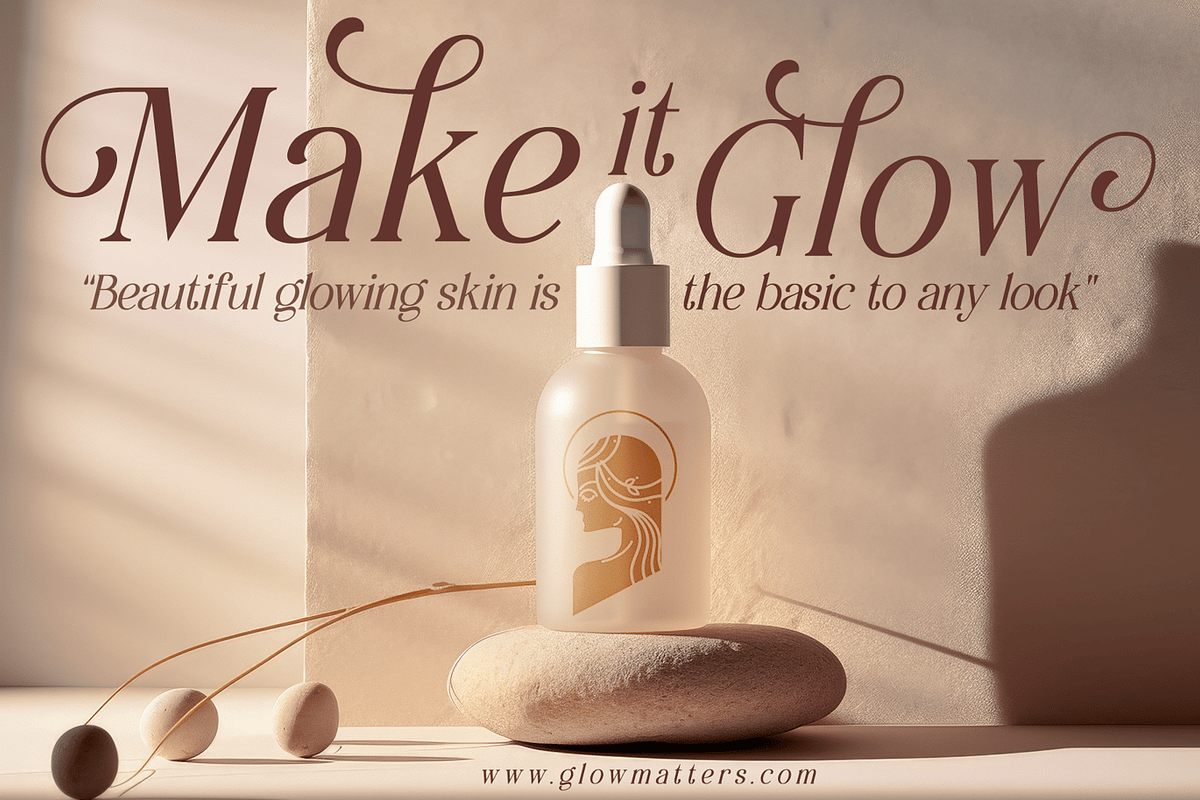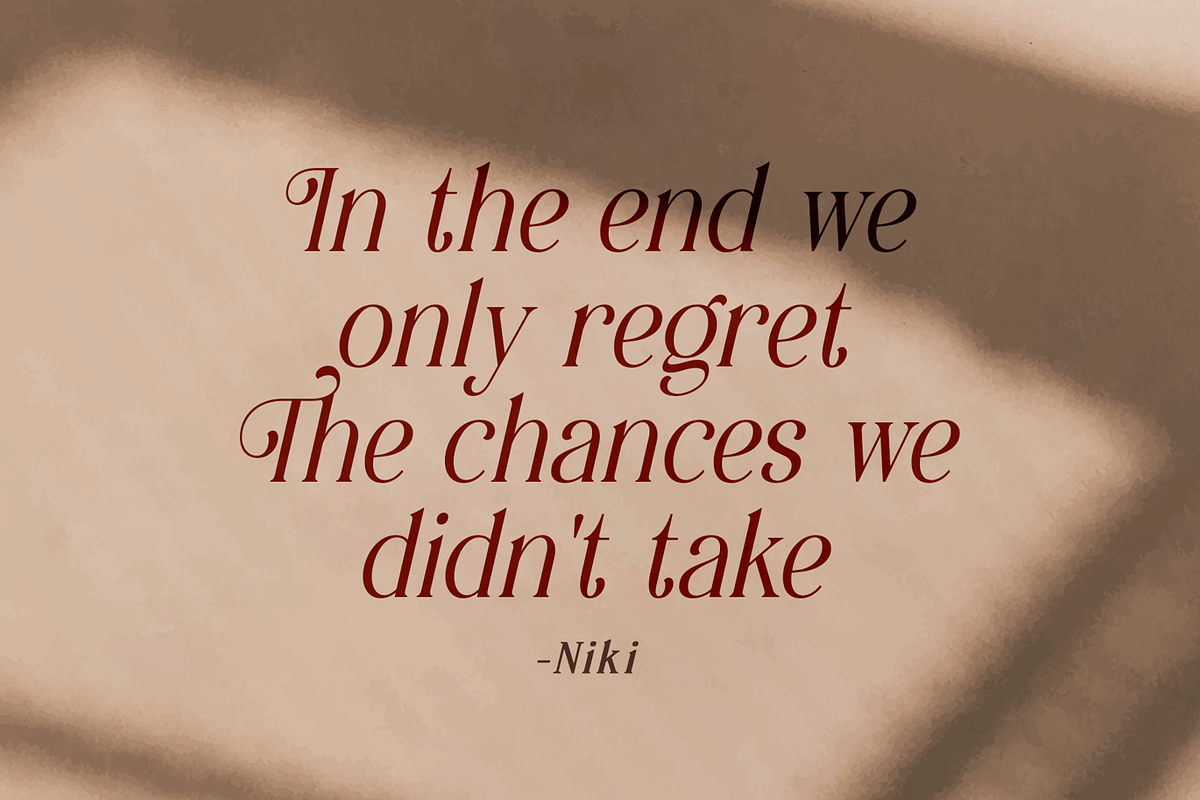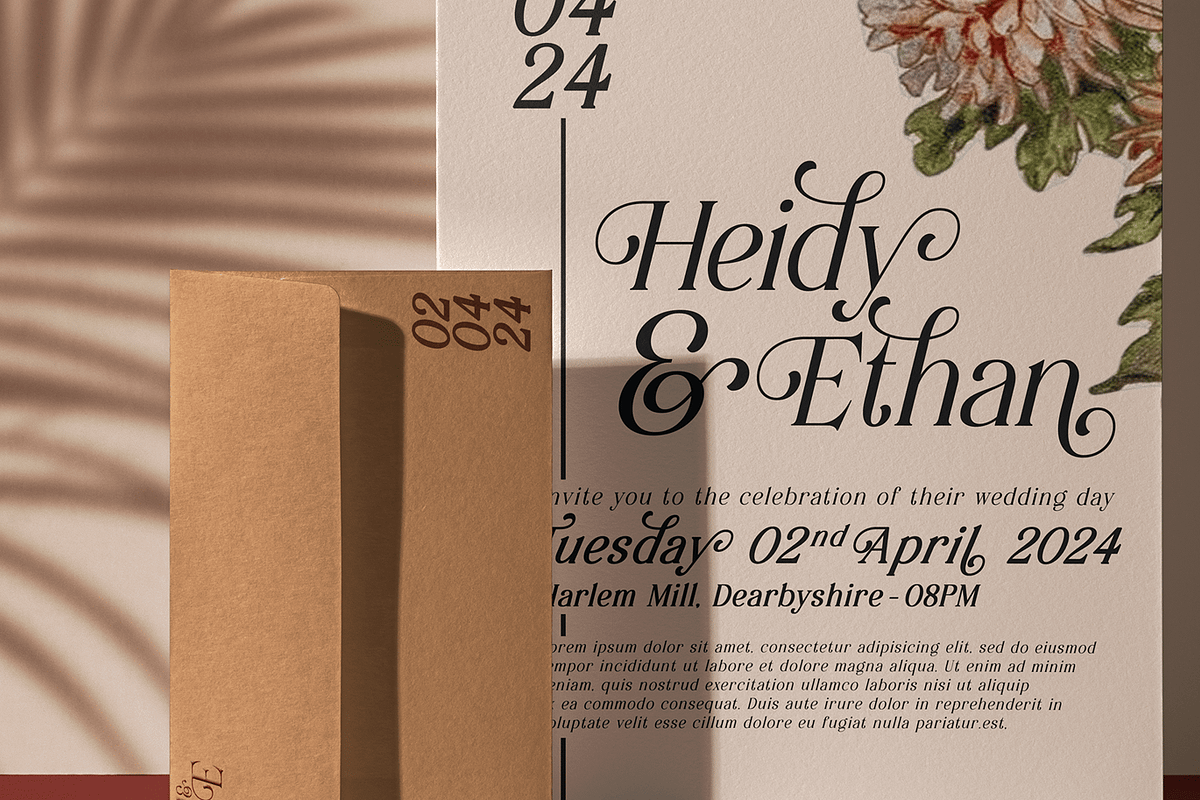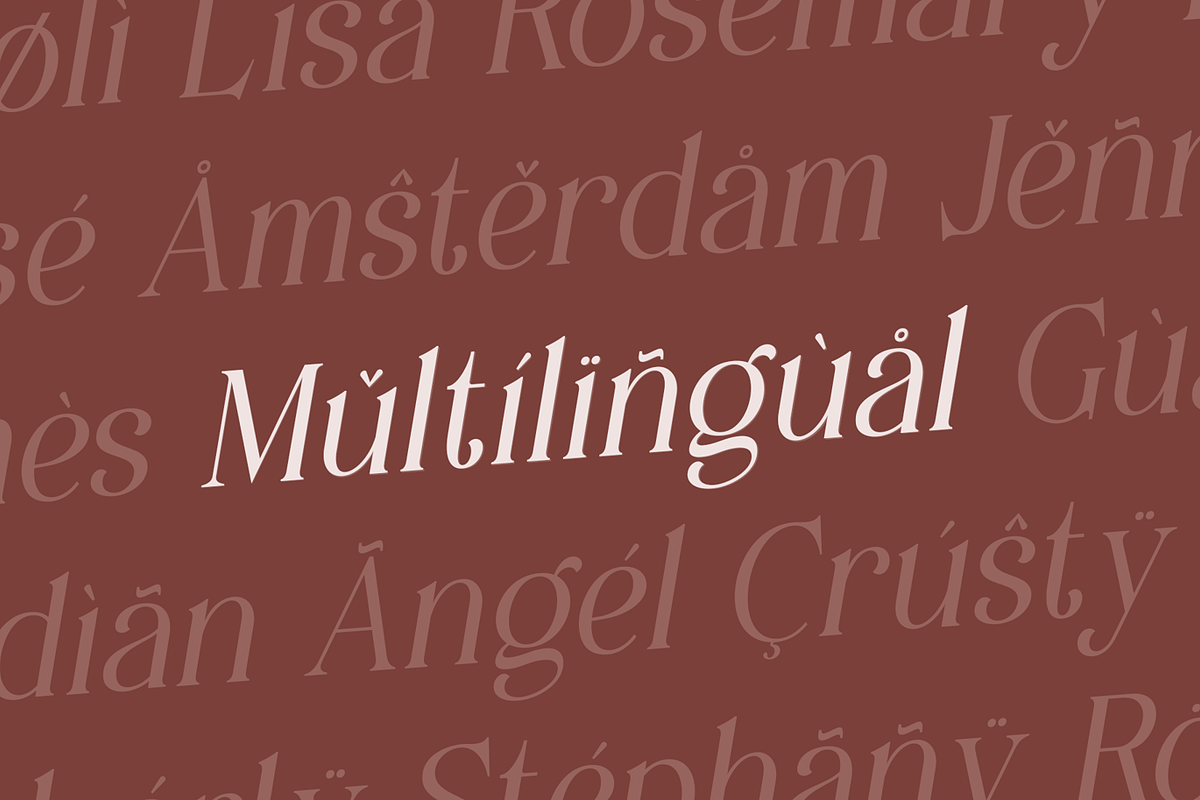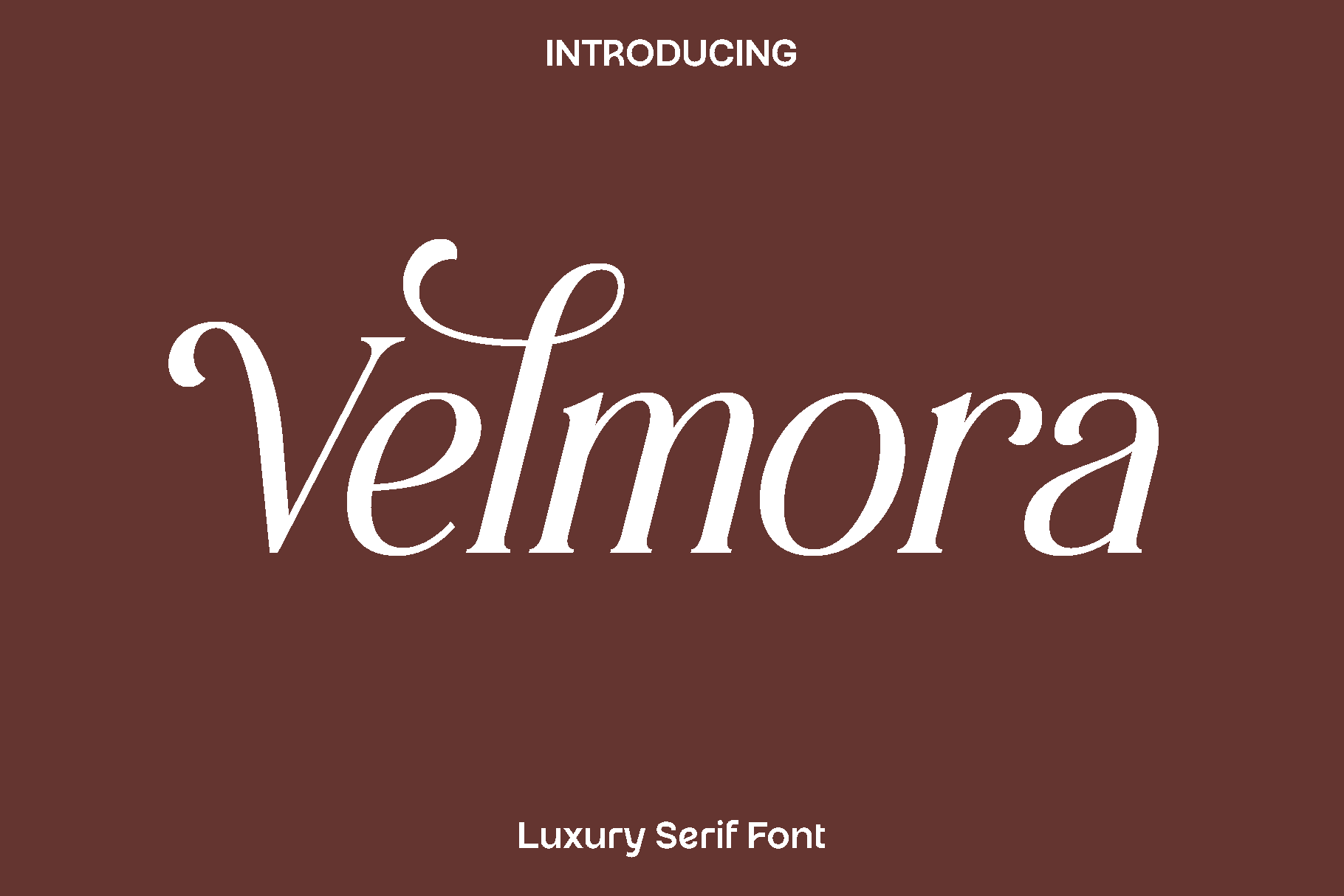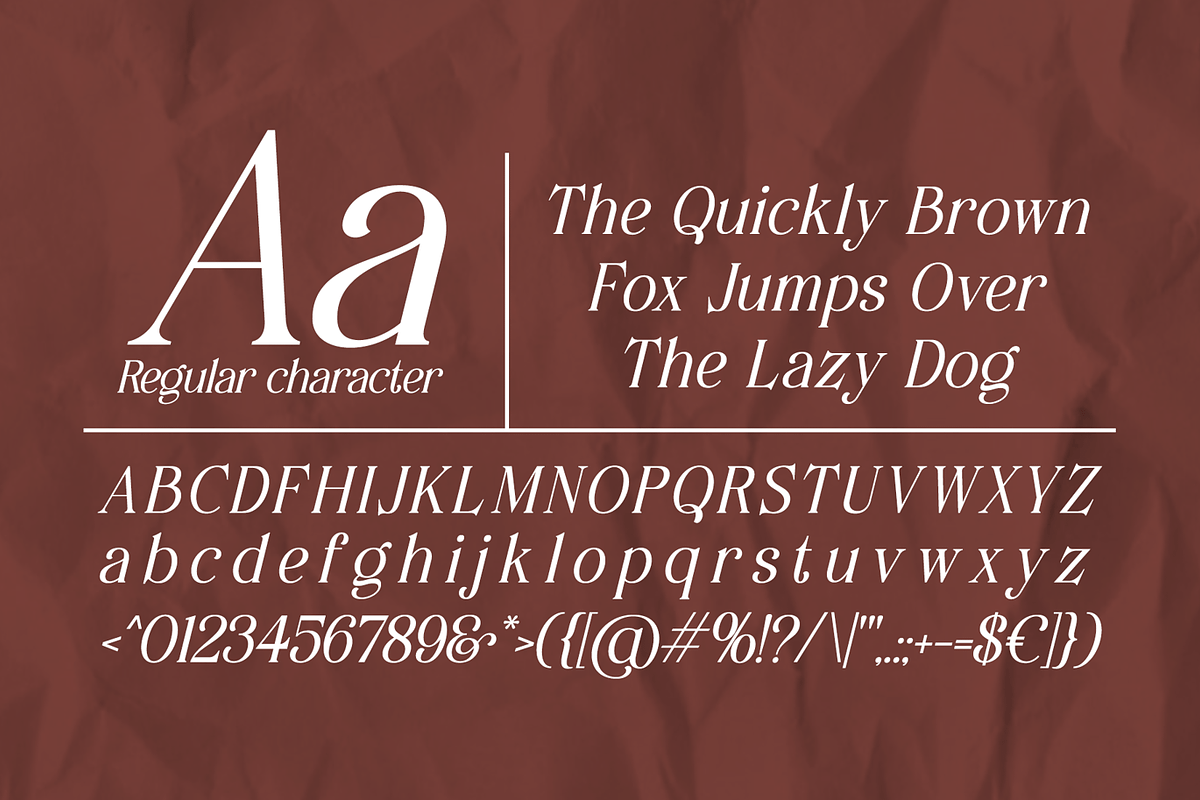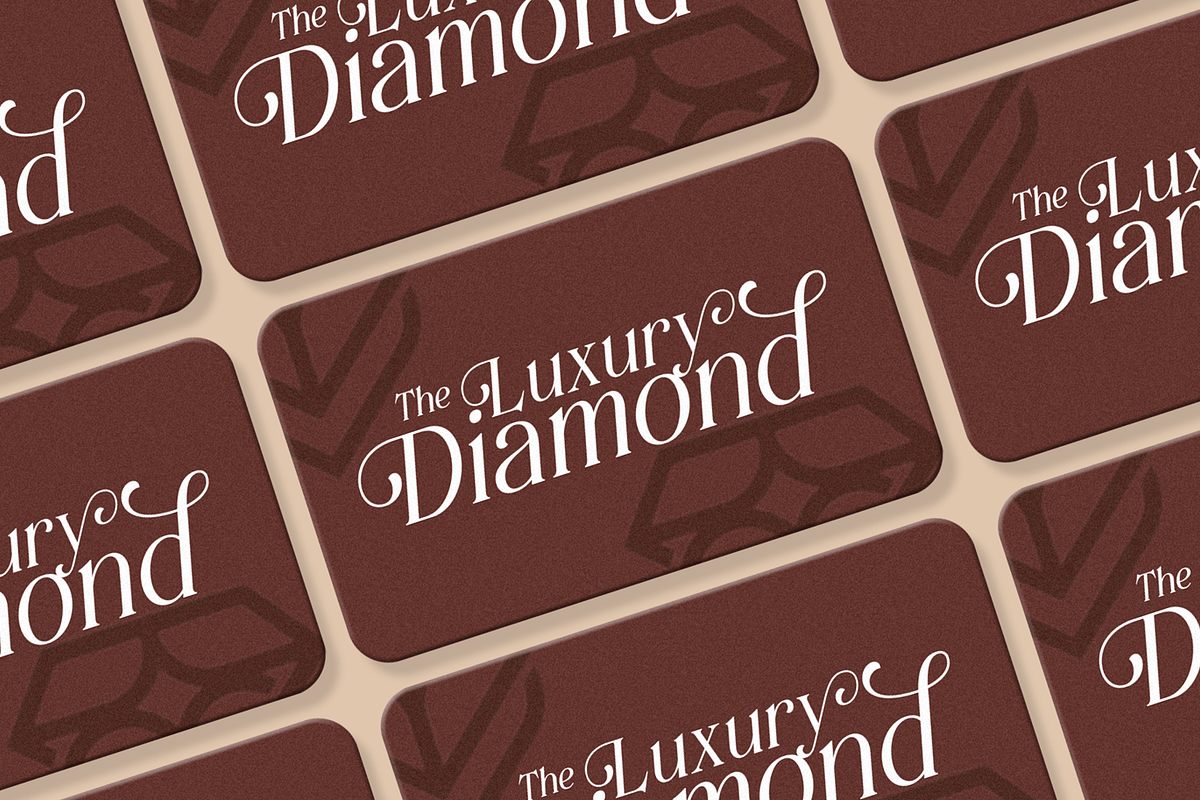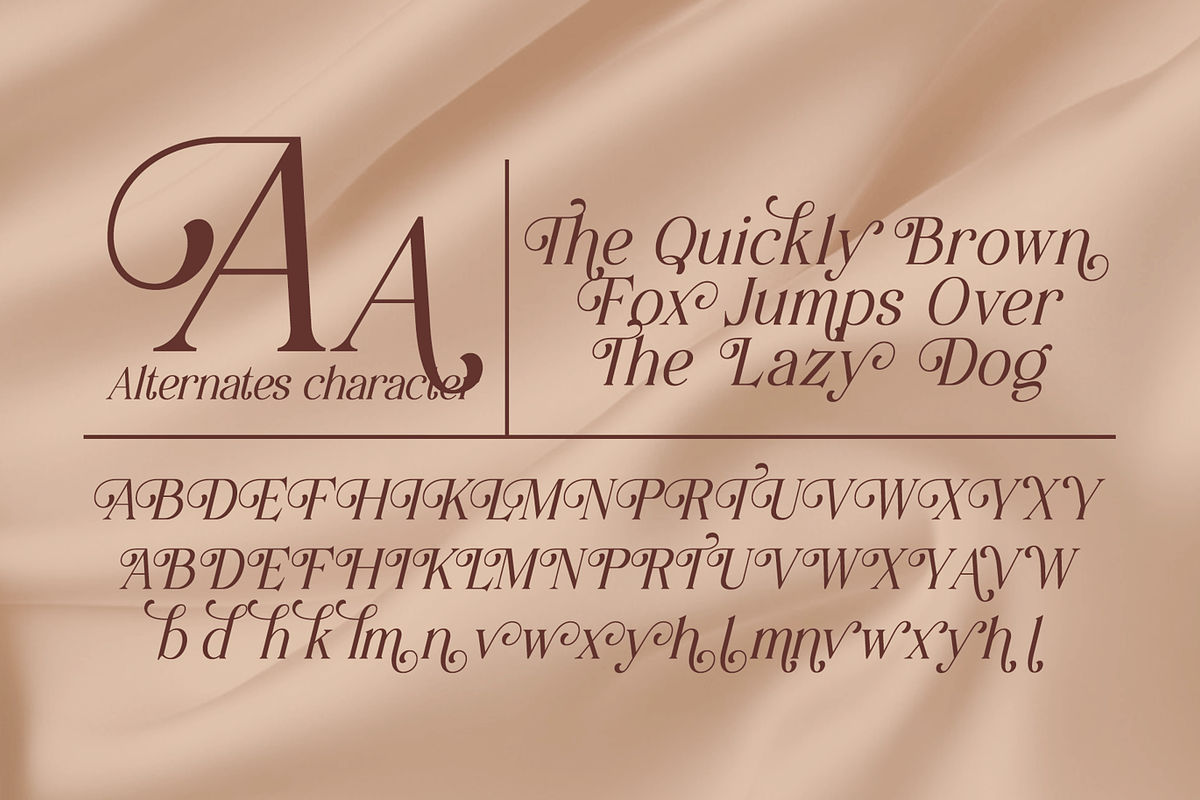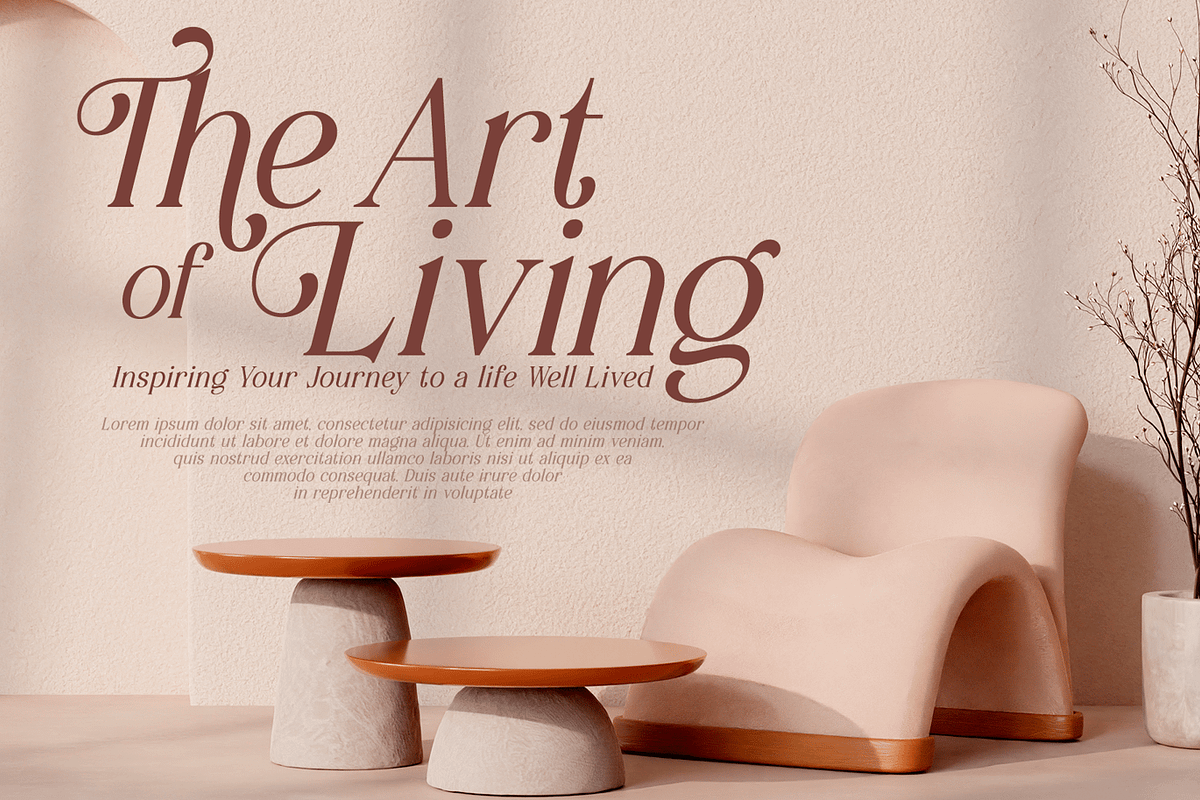
Velmora - Luxury Serif Font
Velmora is a refined modern typeface created to bring elegance and clarity to a wide range of design projects. Inspired by contemporary editorial aesthetics and timeless typography, Velmora blends clean structure with subtle character, resulting in a font that feels both sophisticated and approachable. Its balanced proportions and smooth letterforms create a natural rhythm that enhances readability while maintaining a distinctive visual presence.
Designed with versatility in mind, Velmora shines across both print and digital applications. It works beautifully in book layouts, magazine spreads, branding, logos, photography overlays, quotes, blog headers, posters, and advertising materials. Whether used for bold titles or supporting text, Velmora delivers a polished look that elevates the overall composition and gives your work a professional finish.
Velmora carries a calm and elegant personality, making it suitable for creative projects that require a modern yet timeless tone. Its functional design ensures consistency across different mediums, allowing designers to create cohesive visuals with ease. From editorial storytelling to brand identity, Velmora adapts seamlessly while adding a touch of sophistication to every detail.
Velmora Typeface Features:
• Uppercase and lowercase characters
• Numerals and functional punctuation
• Multilingual support
• Clean and readable letterforms
Velmora is a dependable and stylish addition to any designer’s collection, offering flexibility, elegance, and a refined visual voice for modern creative work.